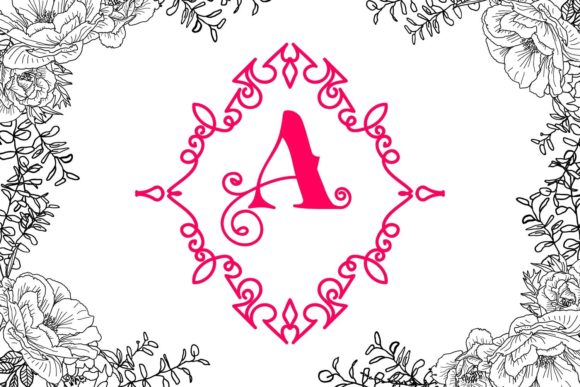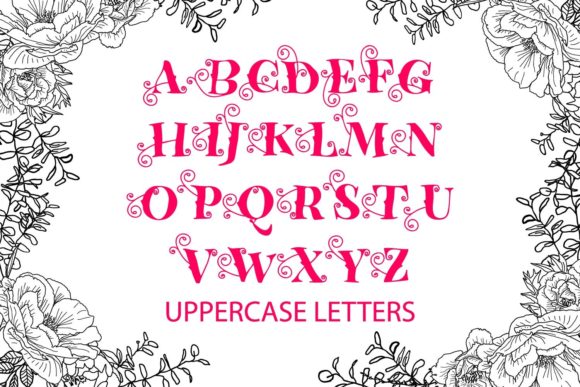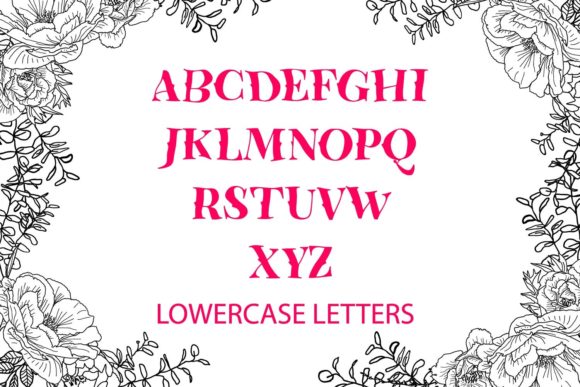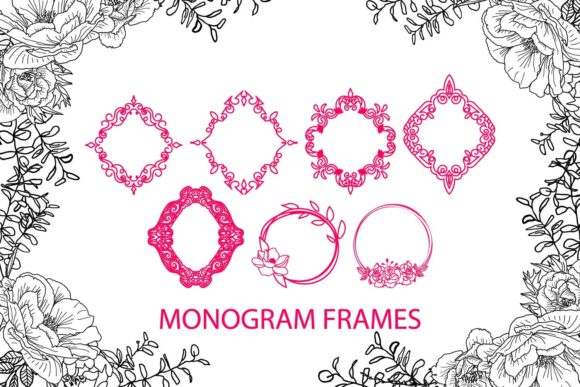
Introducing the Cutest Curly Font Monogram: A Chic and Whimsical Display Font
The Cutest Curly Font Monogram is a stylish and playful display font that is sure to add a touch of elegance and whimsy to any design project. Whether you’re a designer, crafter, or DIY enthusiast, this font is perfect for creating eye-catching and engaging designs that require a lovely touch.
What Makes the Cutest Curly Font Monogram So Special?
The Cutest Curly Font Monogram is a unique and versatile font that is specifically designed to add a touch of charm and sophistication to any design project. Its curly and swirly details make it perfect for creating beautiful monograms, logos, and titles that are sure to stand out.
This font is ideal for a variety of design projects, including:
- Cartoon-related designs: The Cutest Curly Font Monogram is perfect for creating fun and playful designs for children’s books, cartoons, and animations.
- Children’s games: This font is great for creating engaging and interactive designs for children’s games, puzzles, and activities.
- Wedding and party designs: The Cutest Curly Font Monogram is a beautiful choice for creating elegant and sophisticated designs for weddings, parties, and other special occasions.
- Branding and packaging: This font is perfect for creating unique and eye-catching logos, labels, and packaging designs that require a touch of whimsy and charm.
Key Features of the Cutest Curly Font Monogram
The Cutest Curly Font Monogram has several key features that make it a standout font:
- Unique and playful design: The font features curly and swirly details that add a touch of whimsy and charm to any design.
- High-quality and scalable: The font is designed to be high-quality and scalable, making it perfect for use in a variety of design projects, from small icons to large billboards.
- Easy to read: Despite its playful design, the Cutest Curly Font Monogram is easy to read and understand, making it perfect for use in titles, headings, and other display text.
- Versatile: The font is versatile and can be used in a variety of design projects, from digital designs to print materials.
Tips and Tricks for Getting the Most Out of the Cutest Curly Font Monogram
Here are some tips and tricks for getting the most out of the Cutest Curly Font Monogram:
- Experiment with different colors: The font looks great in a variety of colors, so don’t be afraid to experiment and find the perfect color for your design.
- Mix and match with other fonts: The Cutest Curly Font Monogram pairs well with other fonts, so try mixing and matching it with other fonts to create a unique and interesting design.
- Use it for headings and titles: The font is perfect for use in headings and titles, so try using it to add a touch of whimsy and charm to your design.